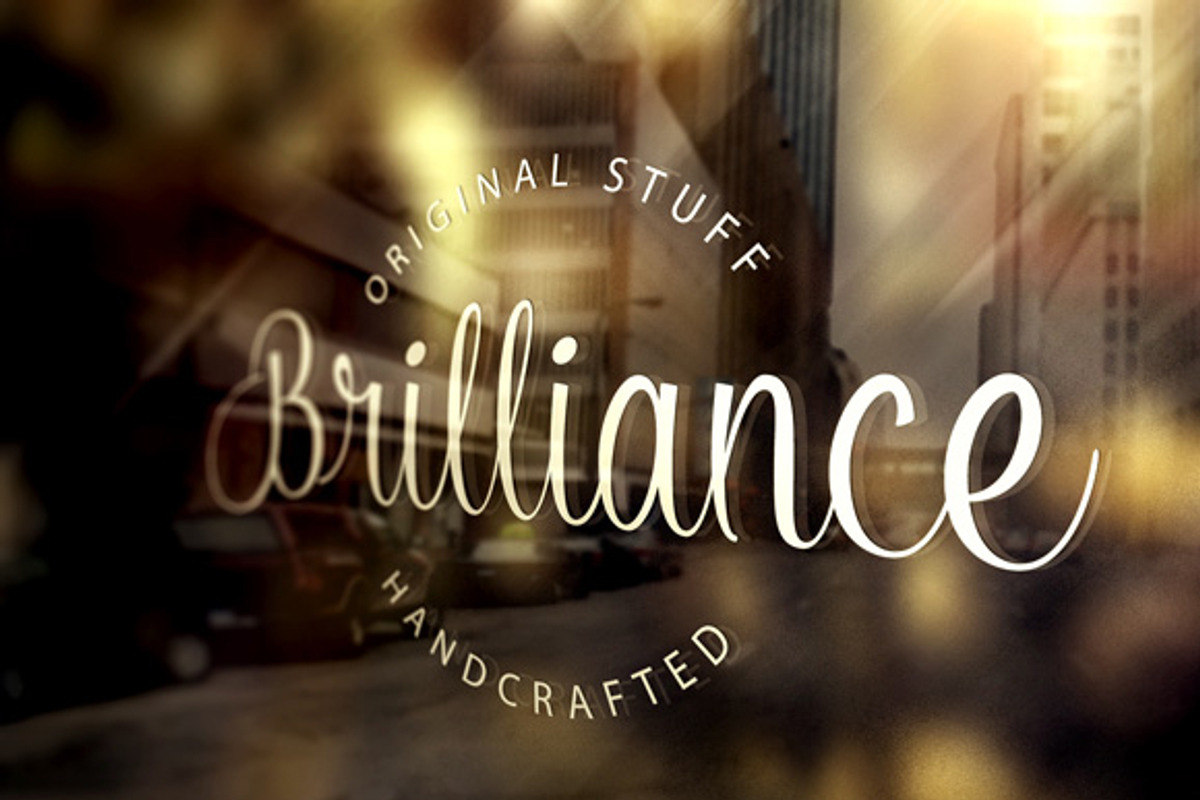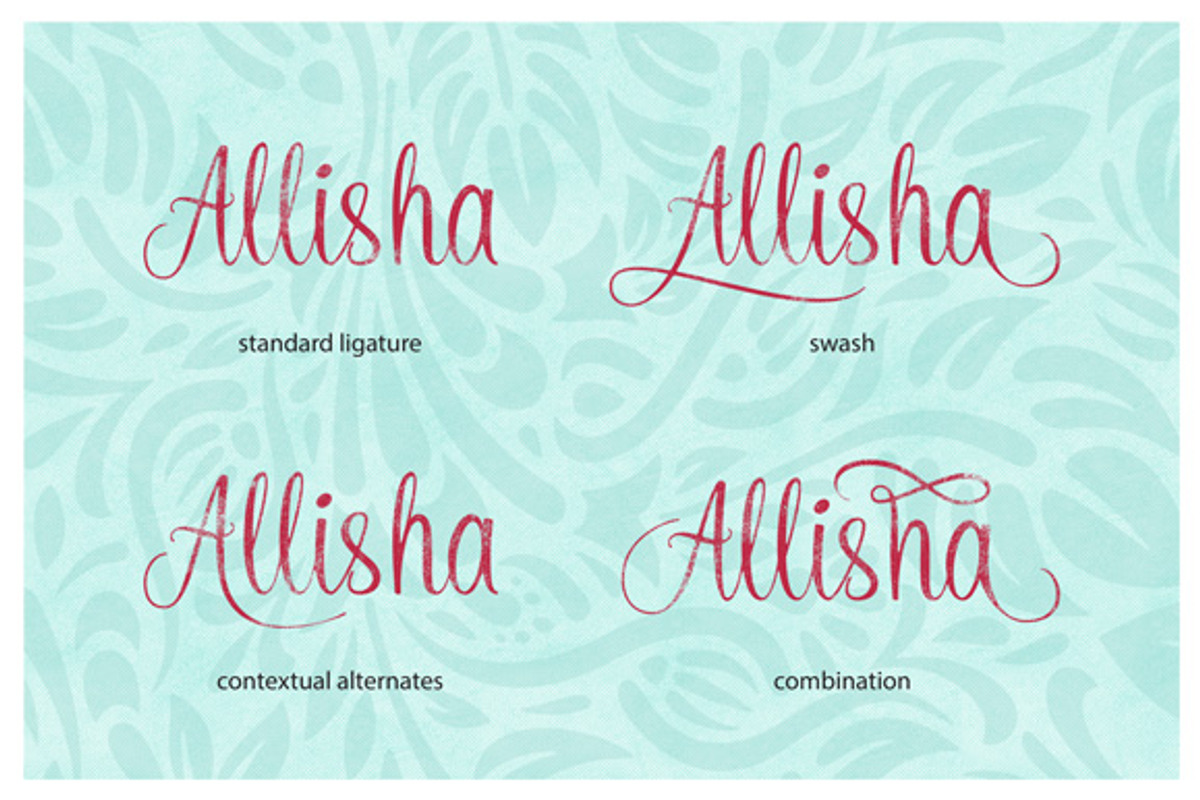
Zakia Typeface
Zakia Typeface by artimasa is a font selected for branding, posters, packaging, typography.
- Zakia Typeface Zakia is informal script lettering font with a bunch of alternative characters to choose.
- Zakia uses OpenType feature such as swash and contextual alternates that can be found by using OpenType savvy program such as Adobe Illustra
Why Zakia Typeface is worth a look
Zakia Typeface by artimasa fits naturally into Branding, posters, packaging, typography.